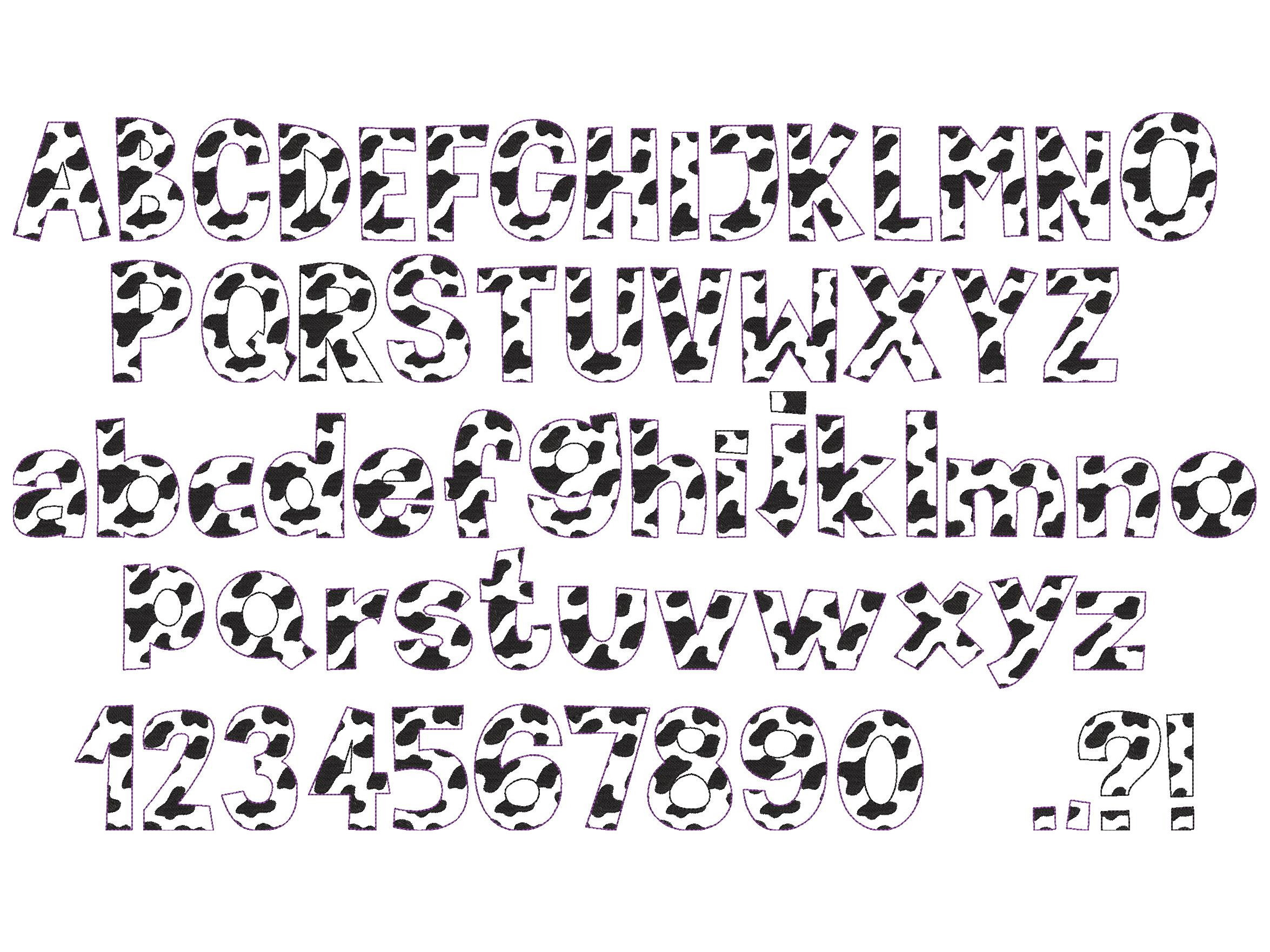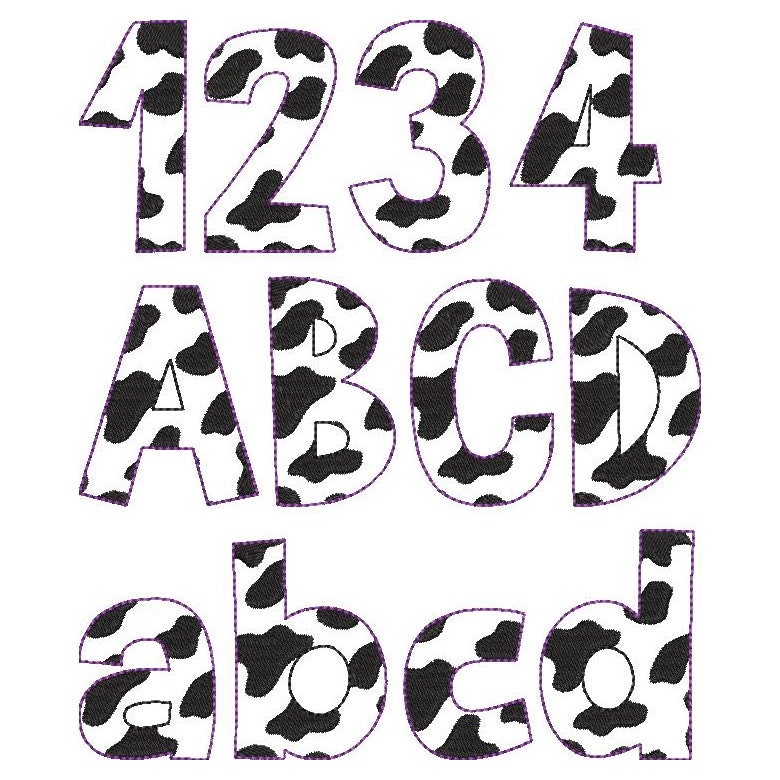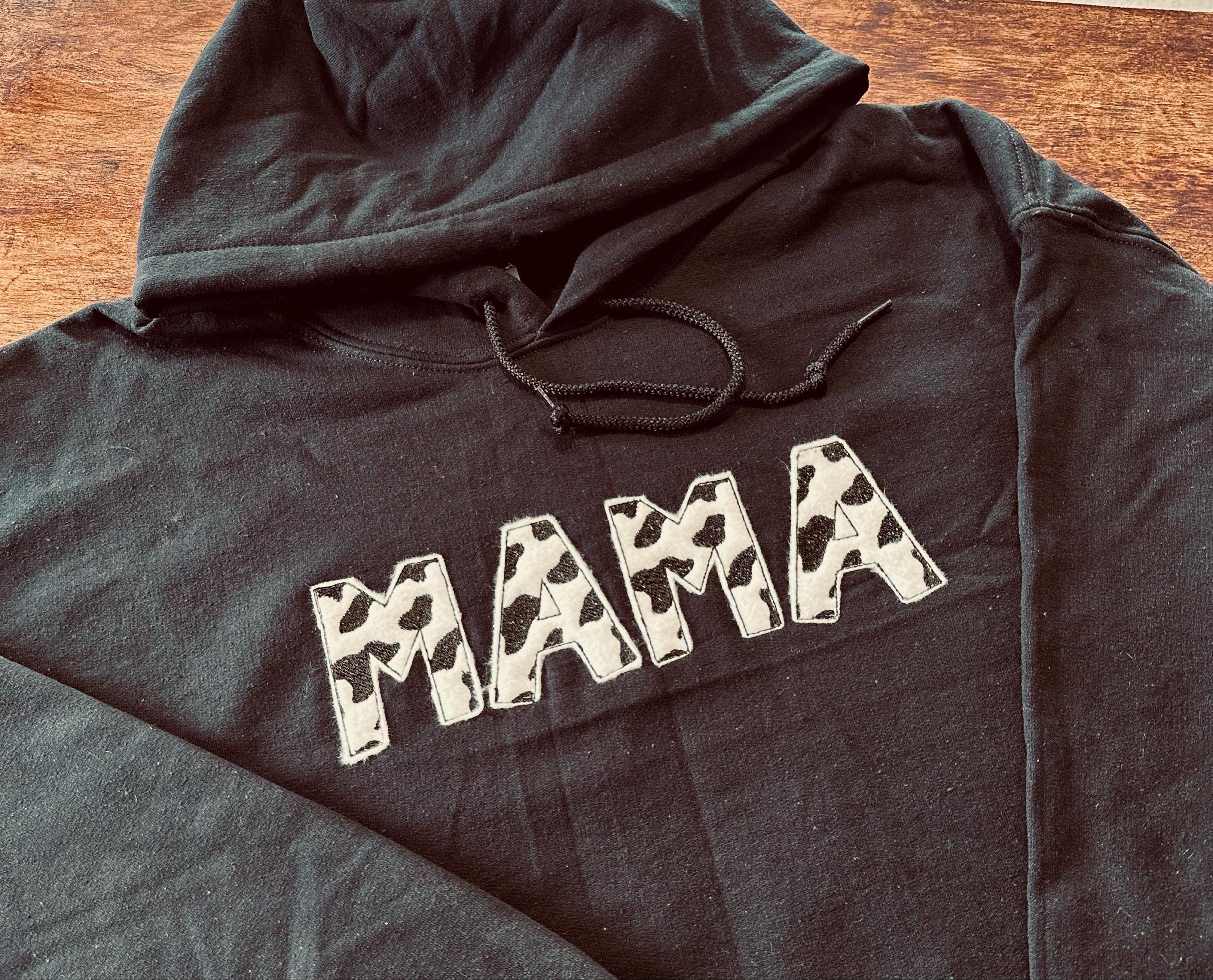
Cow spots patterned Font monogram alphabet letters machine embroidery designs and raggedy applique designs, caps letters and numbers BX included
Uppercase and lowercase letters, numbers and punctuation.
These are quick stitch designs, look like laces, the background fabric looks through. Stunning effect.
Cow spots are part of the embroidery (fill stitch spots shown in the second photo).
May also be used as raggedy edge applique. Just stitch and trim excess fabric.